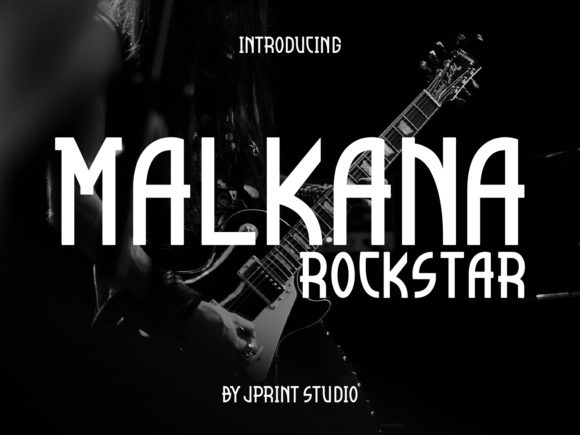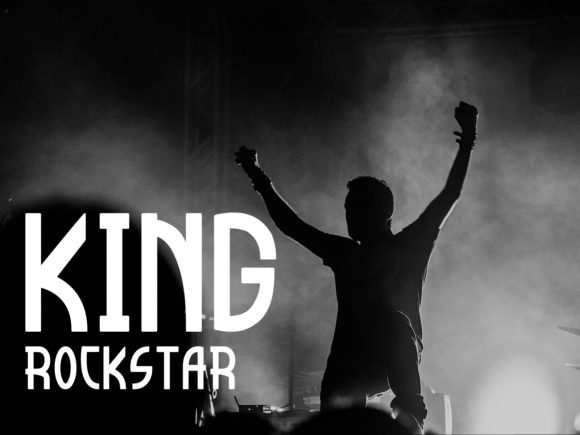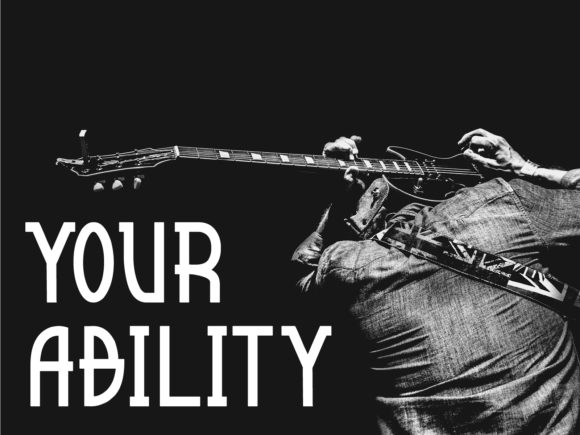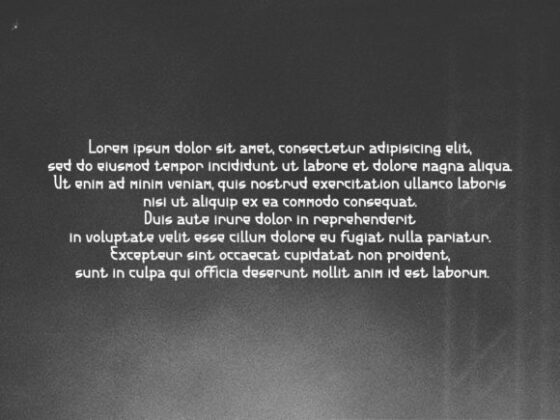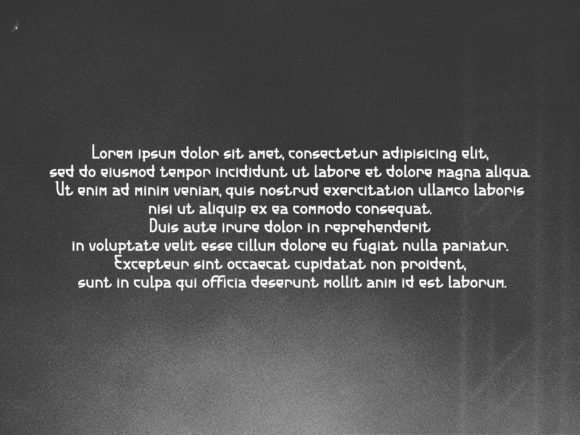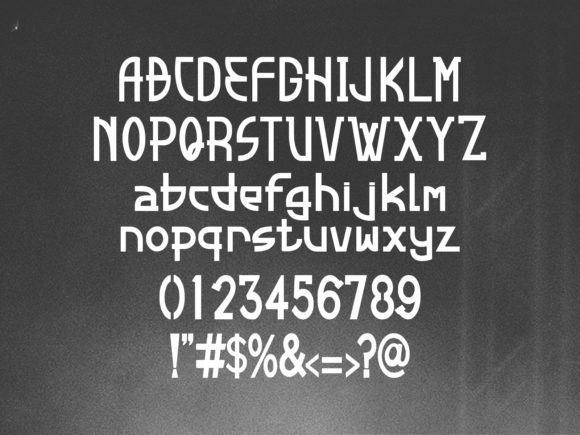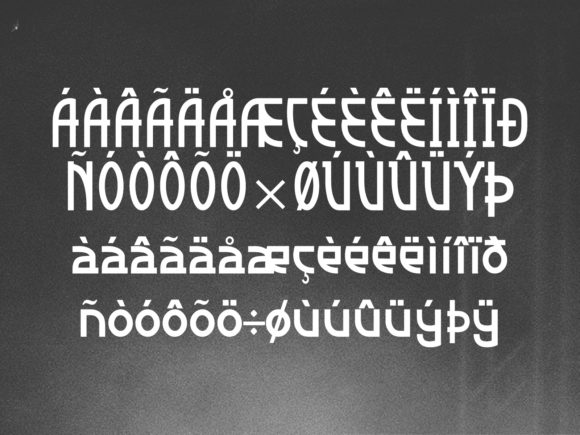
Malkana Font
Malkana: A Classic-Inspired Slab Serif Font with Unique Style
Malkana is a distinctive slab serif font that draws inspiration from classic typography while offering its own unique style. This typeface provides designers with a powerful tool for elevating their projects to new heights of visual appeal.
Key Features of Malkana
• Classic Inspiration: Rooted in traditional typography with a modern twist
• Unique Style: Offers a distinctive look that sets it apart from other slab serifs
• Slab Serif Structure: Incorporates the characteristic thick, rectangular serifs typical of slab serif fonts
• Versatile Application: Suitable for a wide range of design projects
• Design Enhancer: Capable of taking designs to the next level
Ideal Uses for Malkana
Malkana’s unique characteristics make it particularly well-suited for:
• Branding and logo design with a classic touch
• Editorial layouts for magazines and books
• Poster and advertisement designs
• Website headers and digital content
• Packaging design for products aiming for a timeless look
When incorporating Malkana into your designs, consider the following tips:
• Use for headlines or short blocks of text to showcase its unique character
• Pair with simpler sans-serif fonts for body text to create contrast
• Experiment with different sizes to highlight the font’s classic-inspired details
• Consider using it in projects where you want to evoke a sense of timelessness with a modern edge
Malkana is an excellent choice for designers looking to add a classic-inspired slab serif with a unique twist to their typographic toolkit. Its ability to elevate designs makes it stand out in the world of typography. Whether you’re working on logo designs, creating layouts for editorial projects, or developing branding that requires a timeless yet distinctive look, Malkana offers the perfect blend of classic inspiration and unique style.
Explore how Malkana can take your designs to the next level. From elegant branding to impactful editorial layouts, this font provides the tools to create striking and memorable typography that stands out with its unique interpretation of classic design principles.